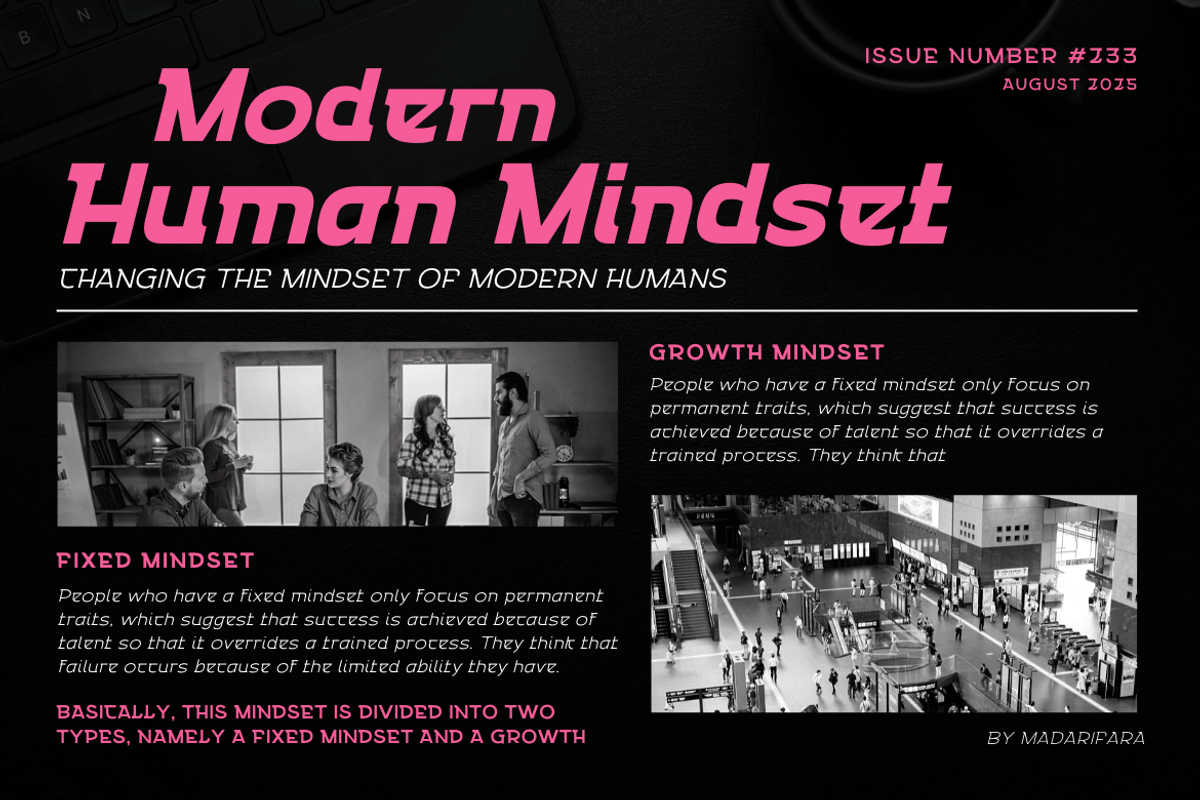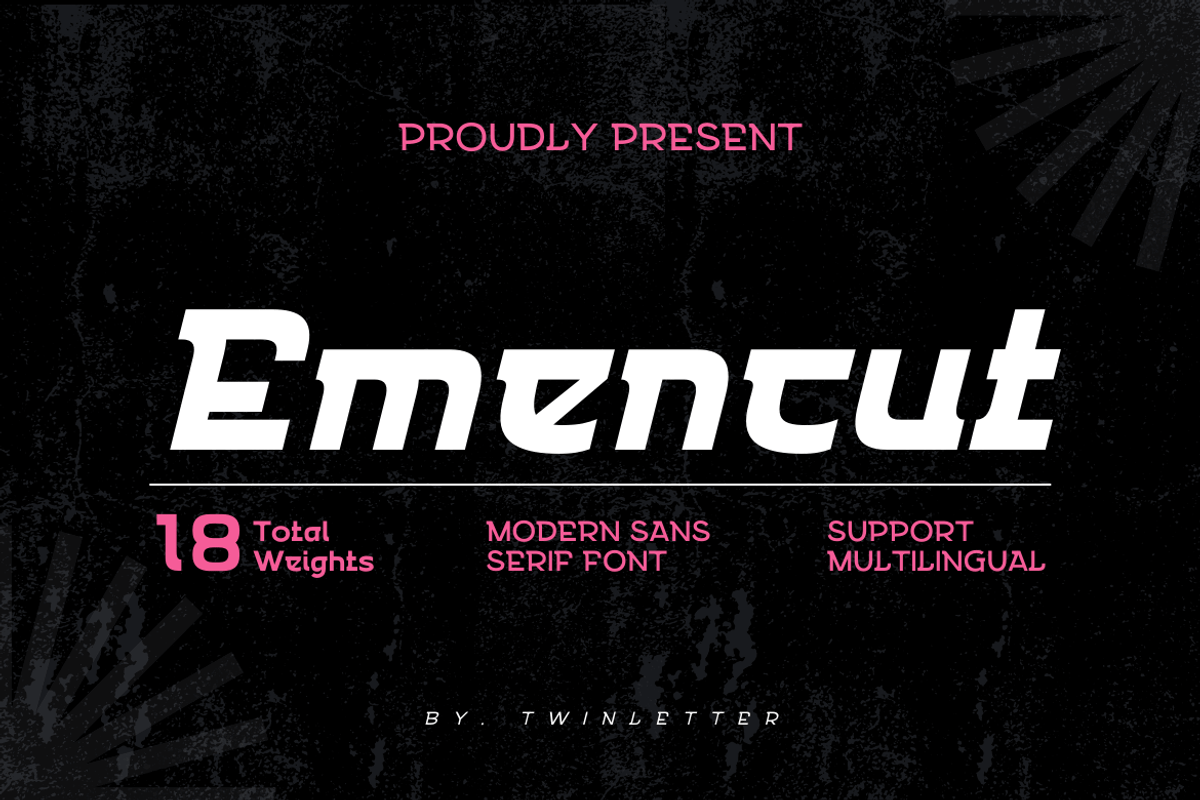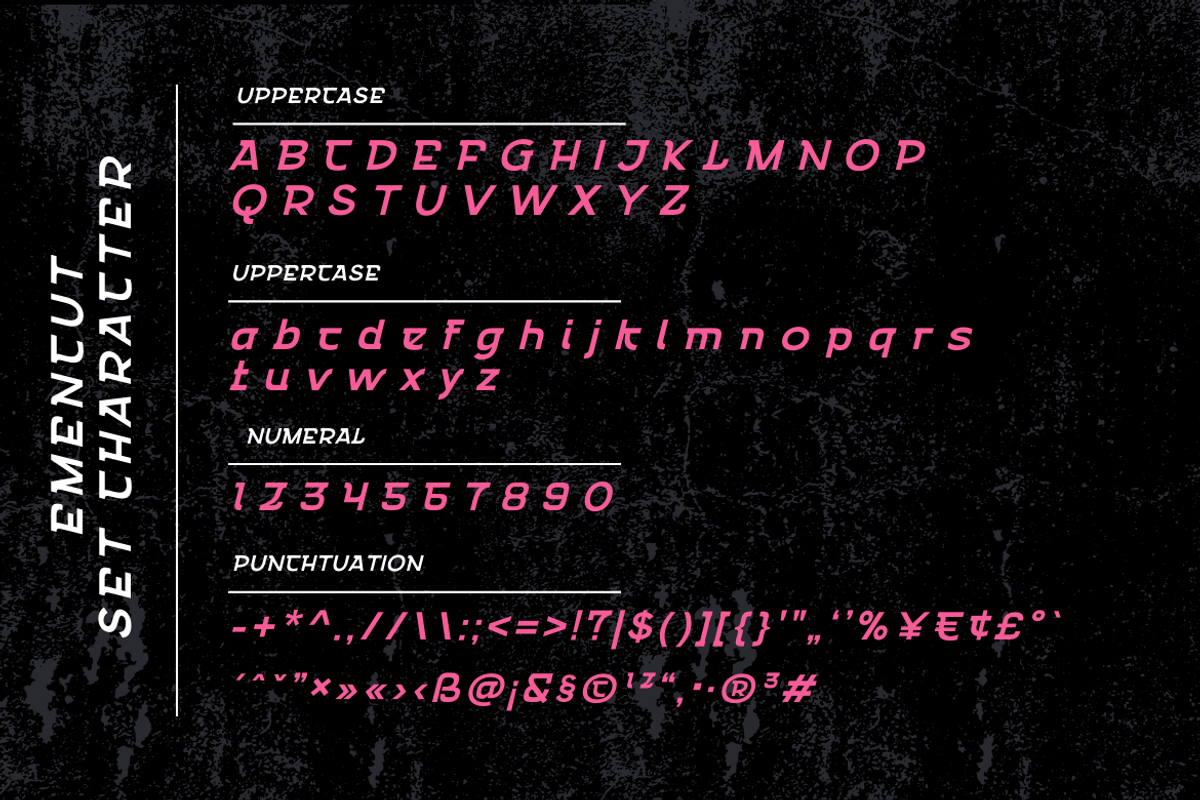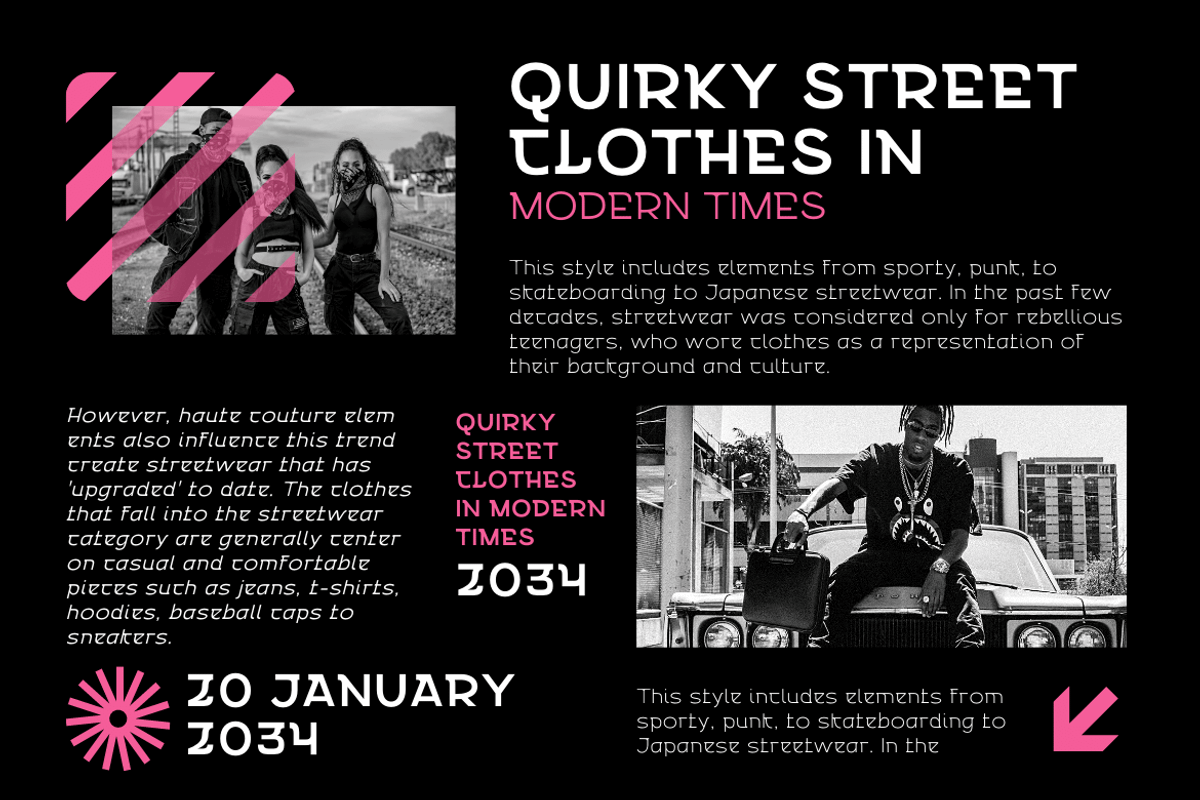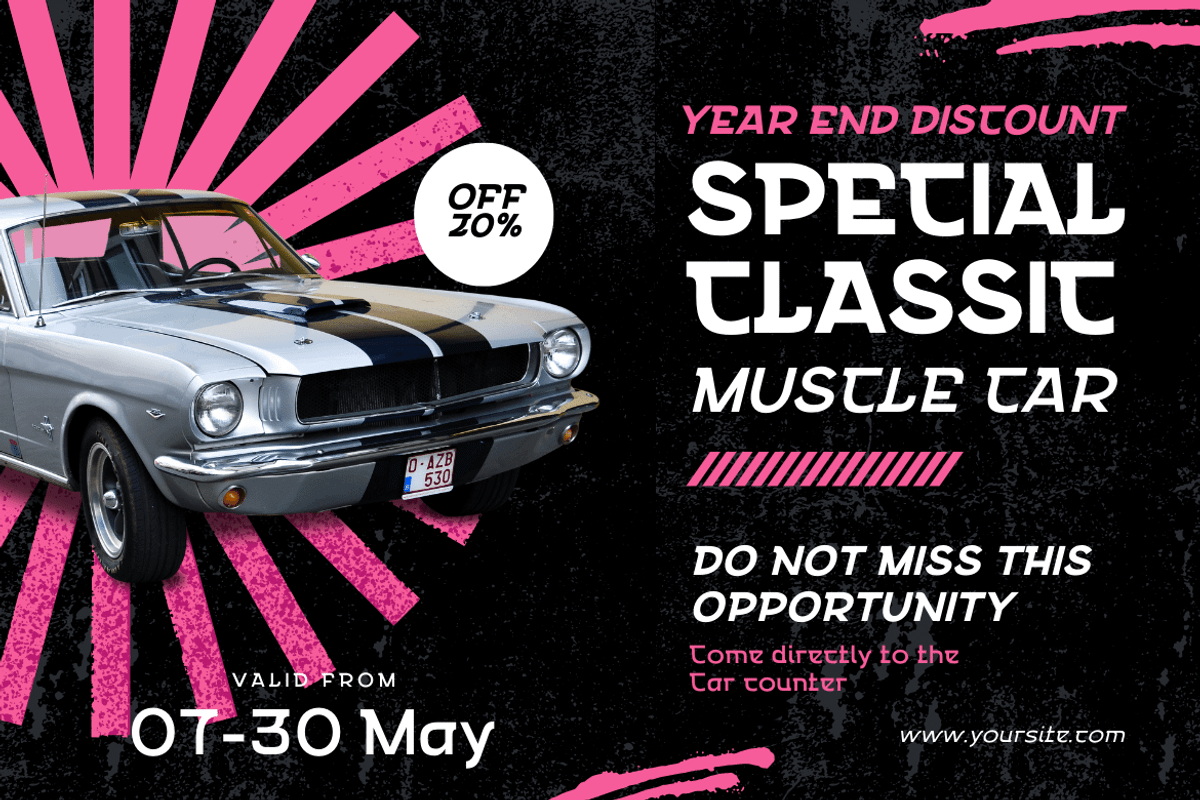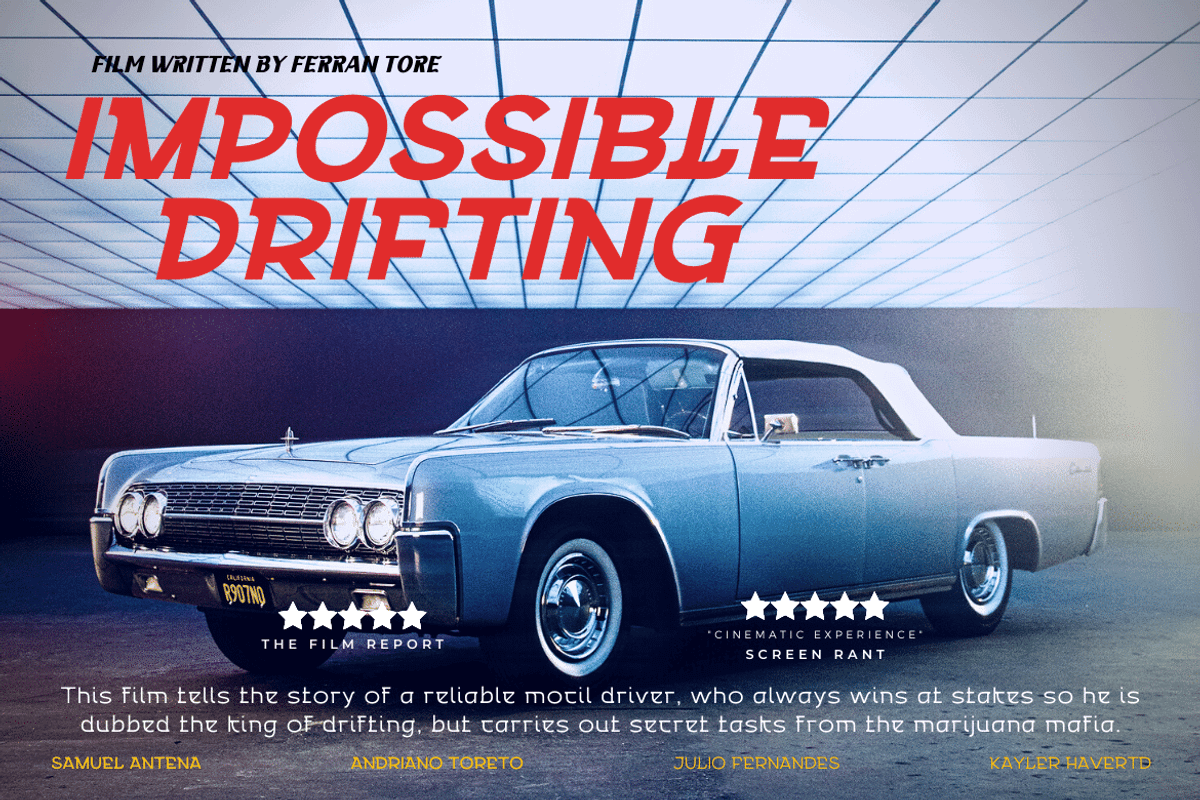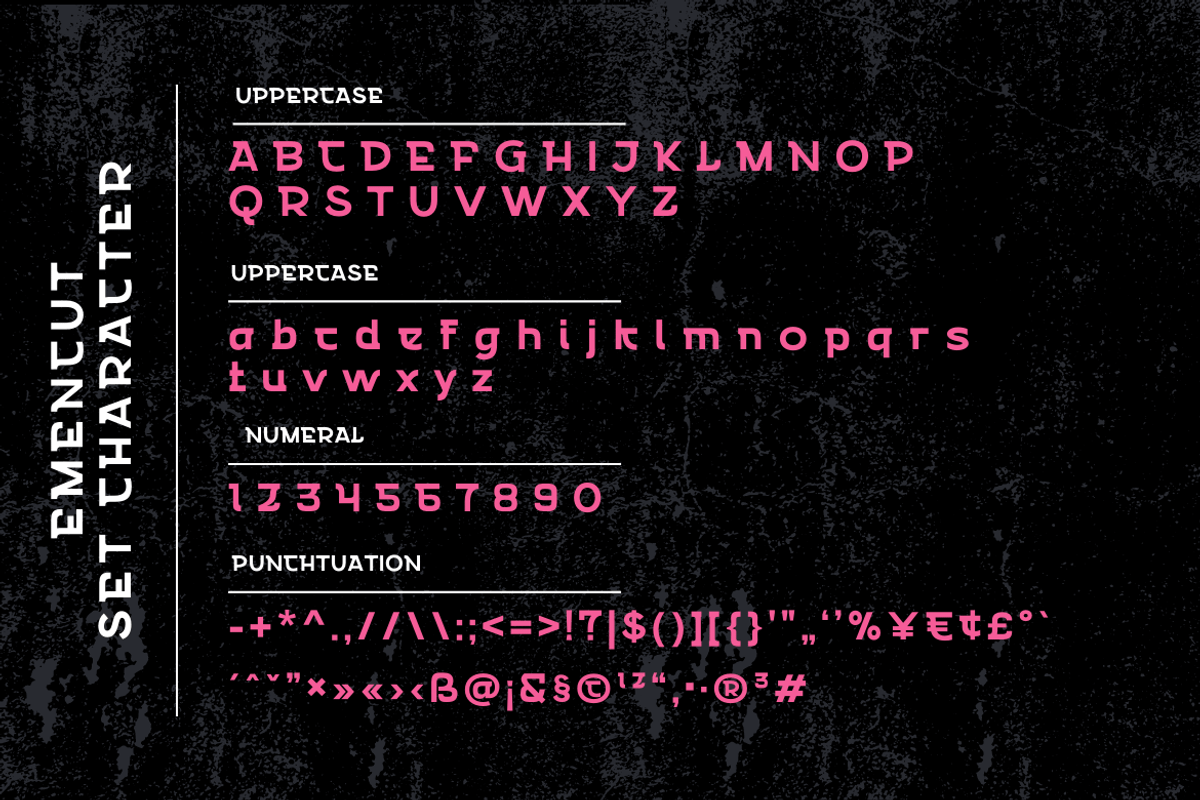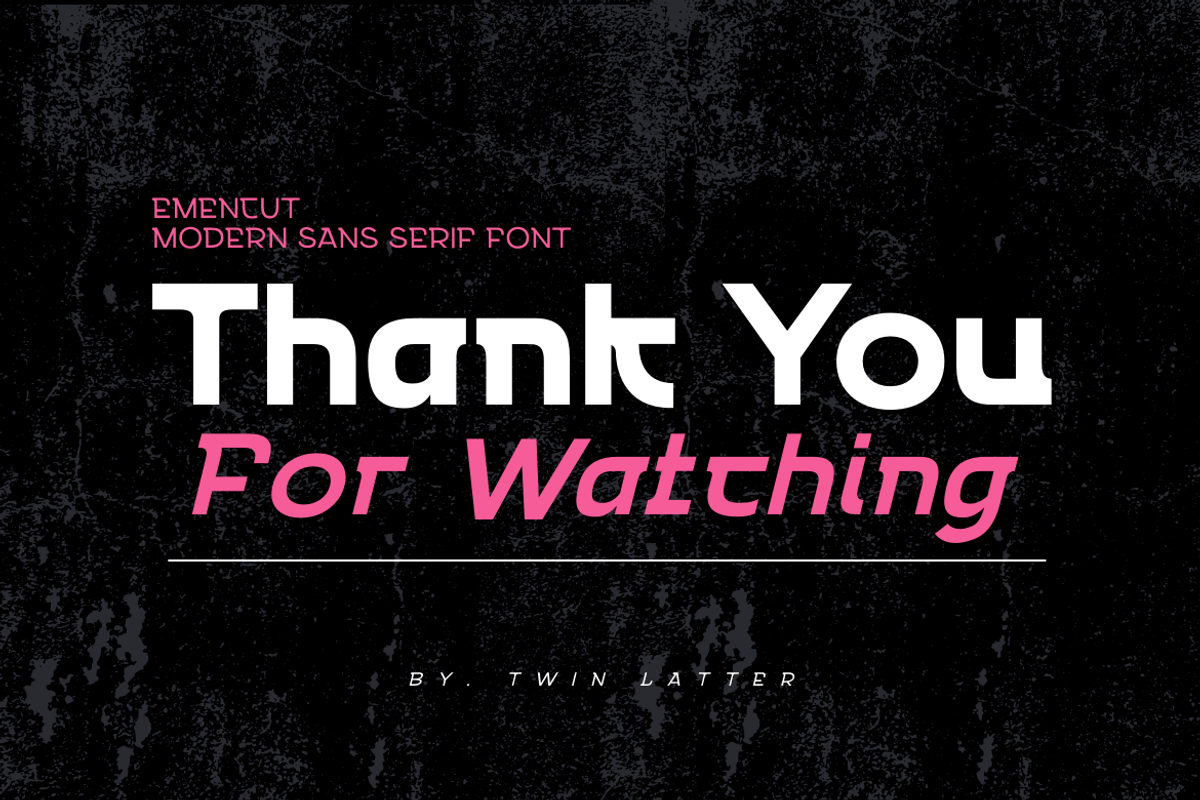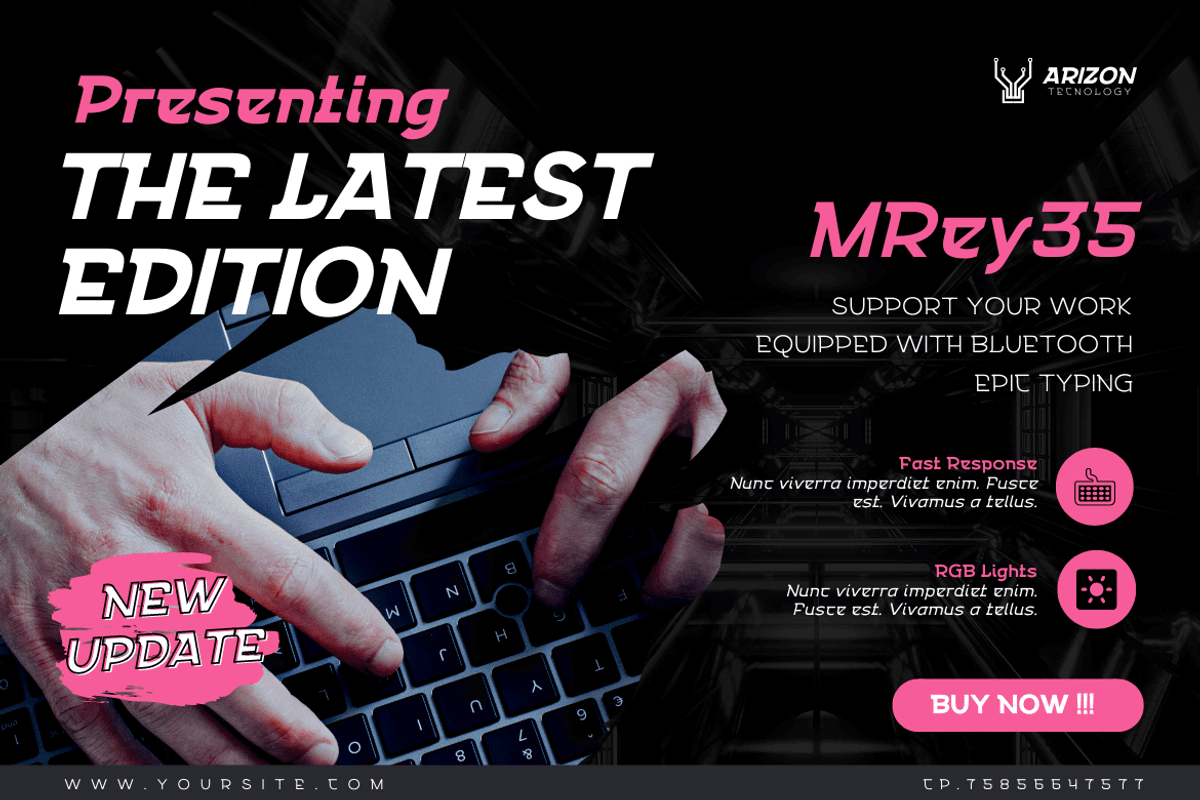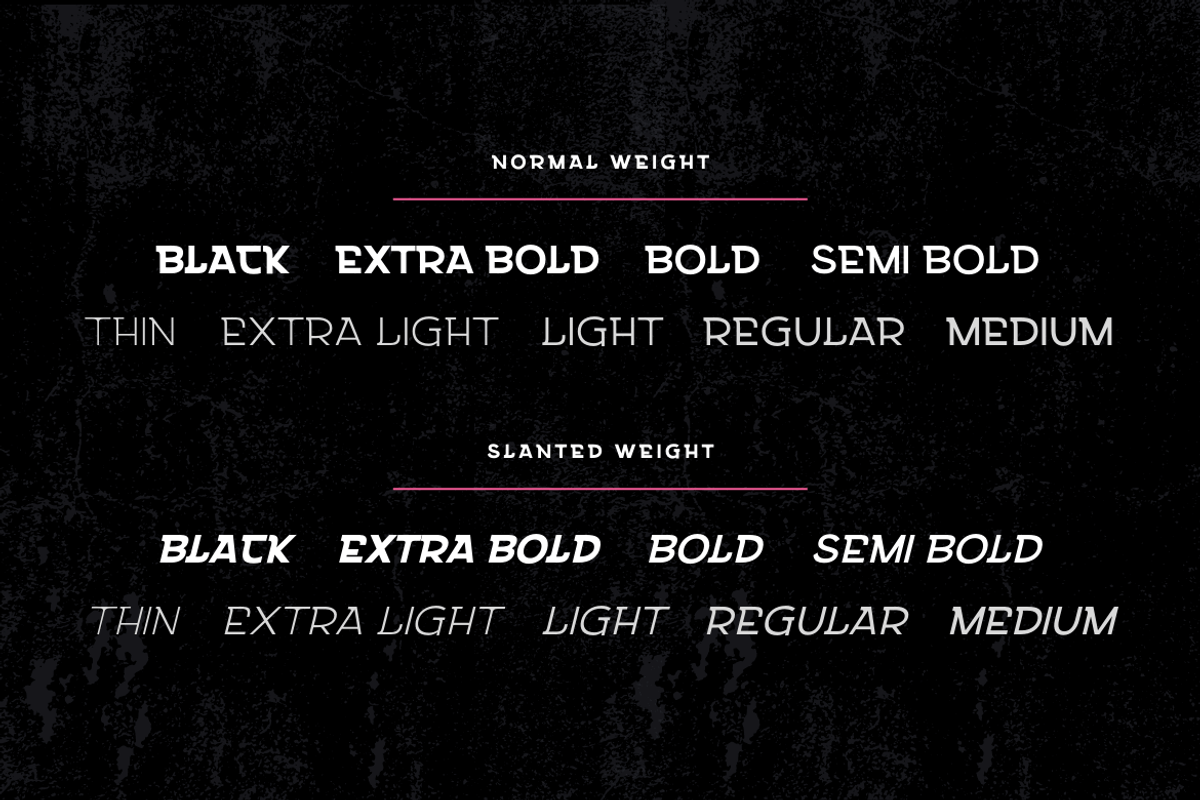
Emencut
Emencut sans serif, and everything in between. San Serif is a hot trend, and we have the hottest ones. Our newest font family is waiting for you to get it: The San Serif family offers 18 different styles, each with a unique look. Use this typeface in your design or business projects,
of course, your various design projects will be perfect and extraordinary if you use this font because this font is equipped with a font family, both for titles and subtitles and sentence text, start using our fonts for your extraordinary projects.